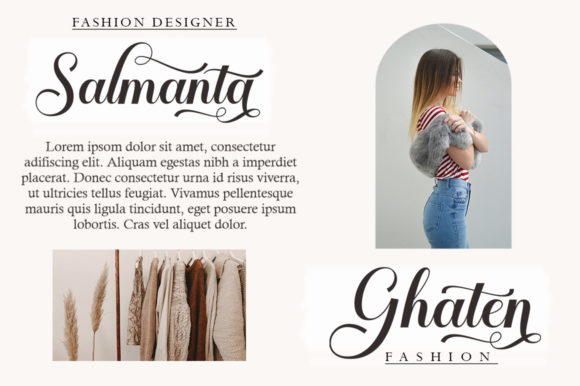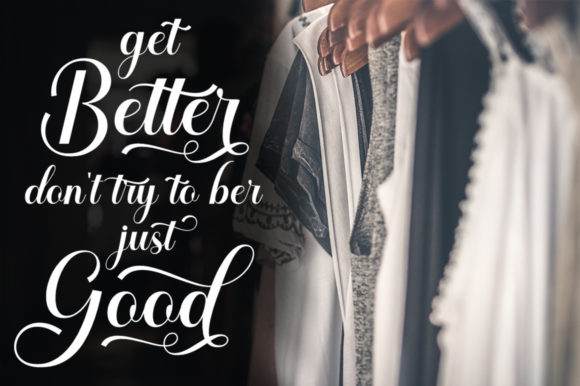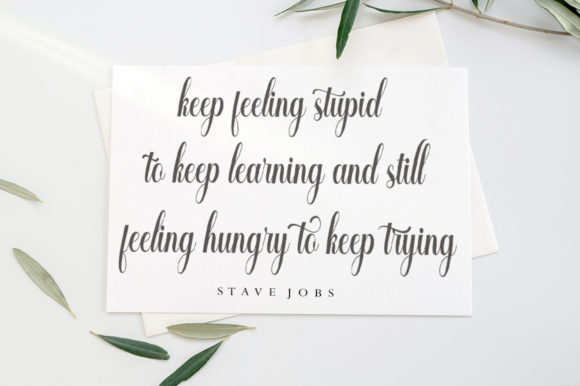
Introduction to Anamelia Font
Anamelia Script is a calligraphy font with a classic style and a touch of elegance, inspired by the handwriting of ancient manuscripts.
Carefully designed to work together in harmony that makes it very suitable for wedding media, book covers, greeting cards, logos, branding, business cards, and certificates, even for any design work that requires a classic, formal or luxurious .
Anamelia Font offers exceptional quality and versatility, making it a valuable addition to your design toolkit. Whether you’re creating for personal projects or commercial use, Anamelia Font delivers professional results.